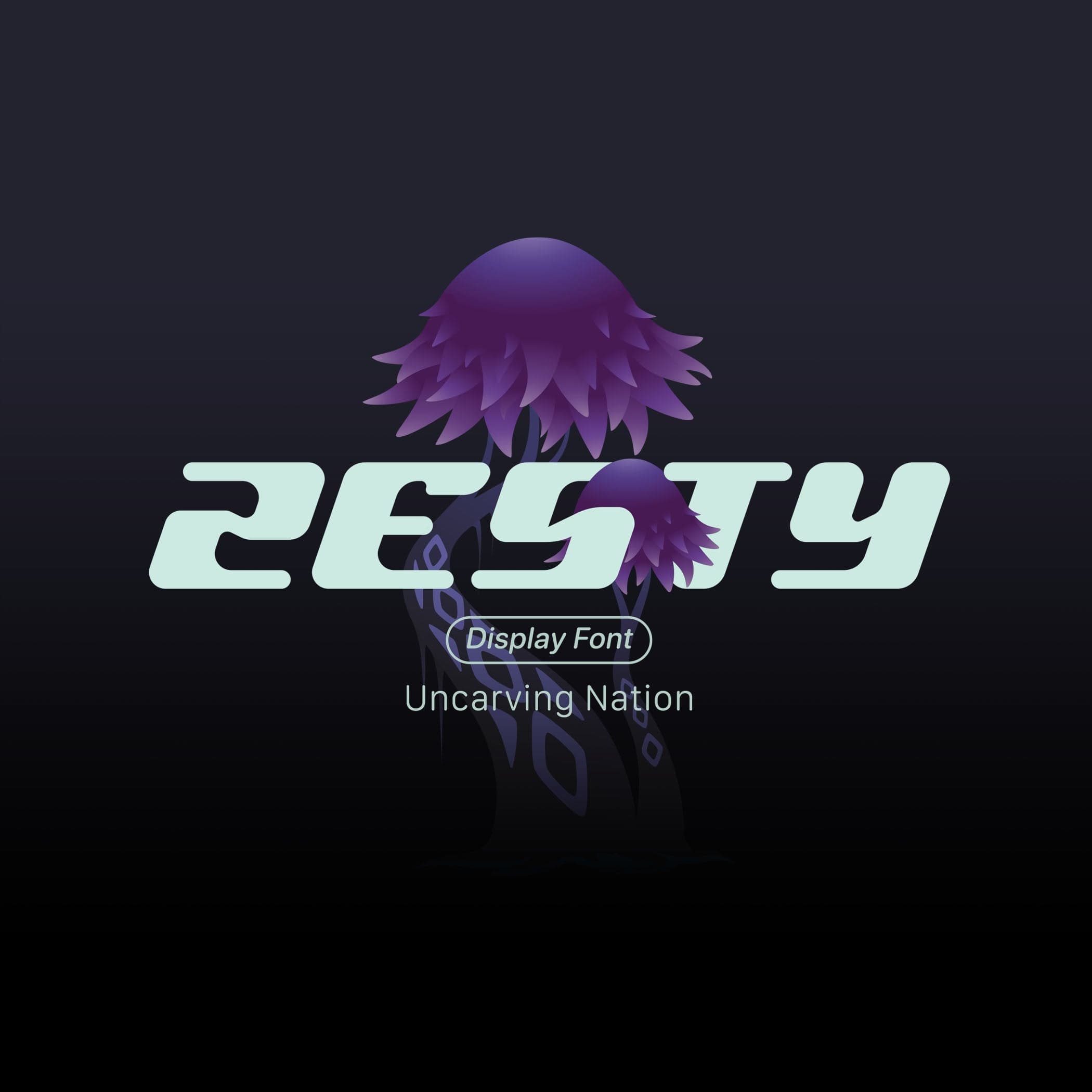
<p>Uppercase : Normal<br>Lowercase : Outline</p> <p>Inspired by the modern bold theme, keeping the simplicity and unique shapes Great for use in your projects related to gaming, future tech, space travel, virtual reality & much more!</p>